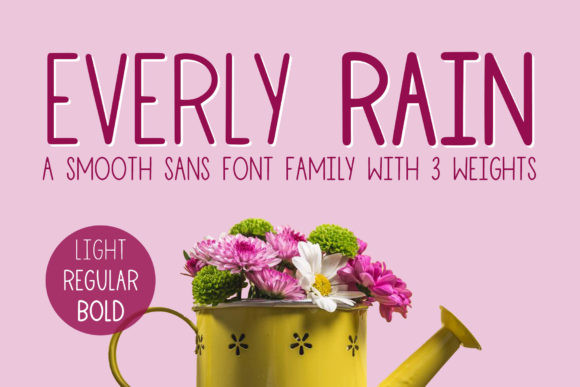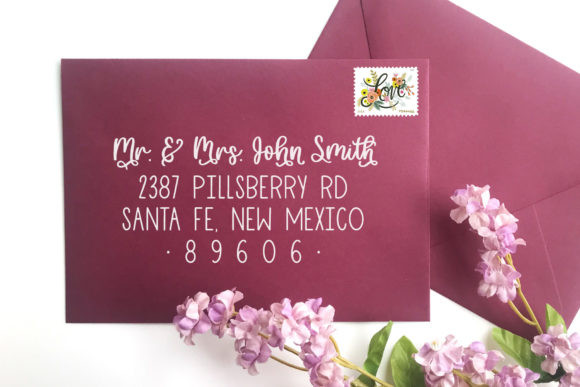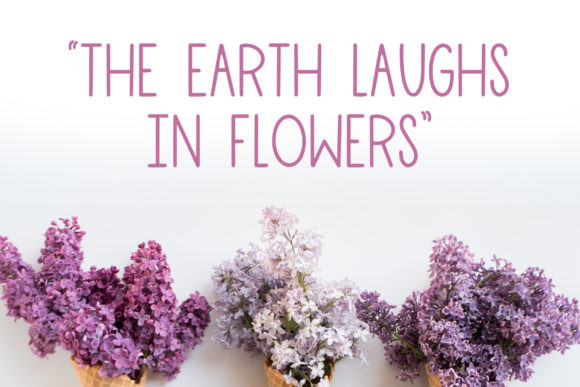
Everly Rain Font
Everly Rain is a smooth sajs serif font that includes a Regular, Bold and Light version. It will complement any design need perfectly with its perfectly balanced mix of smooth and sharp!